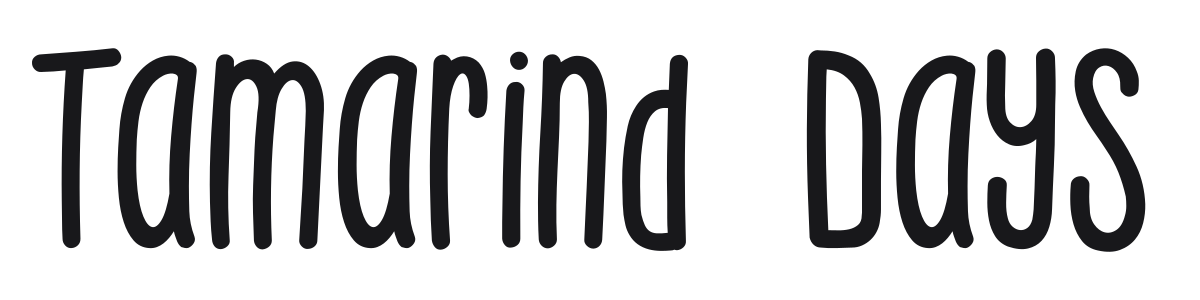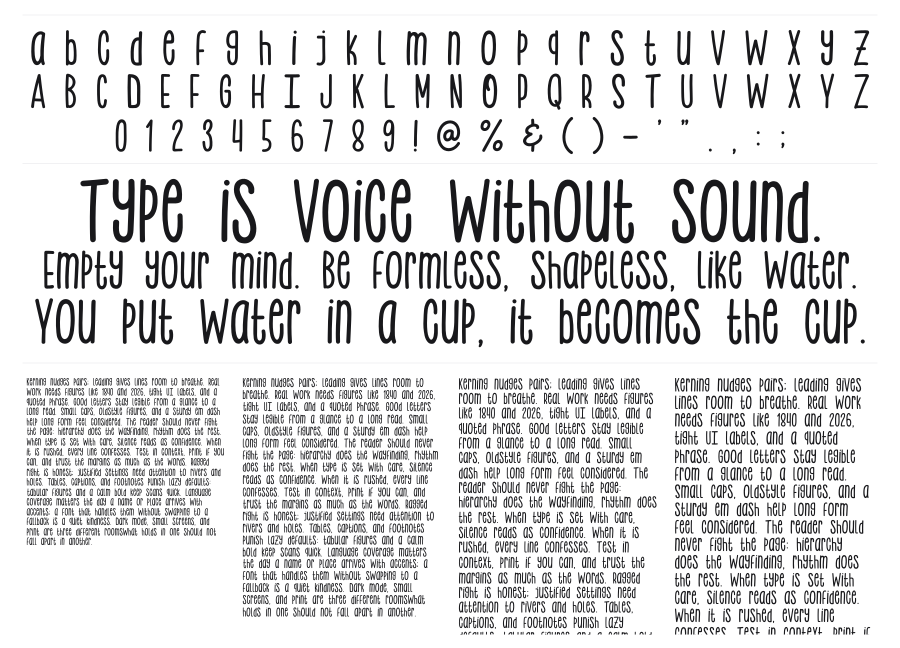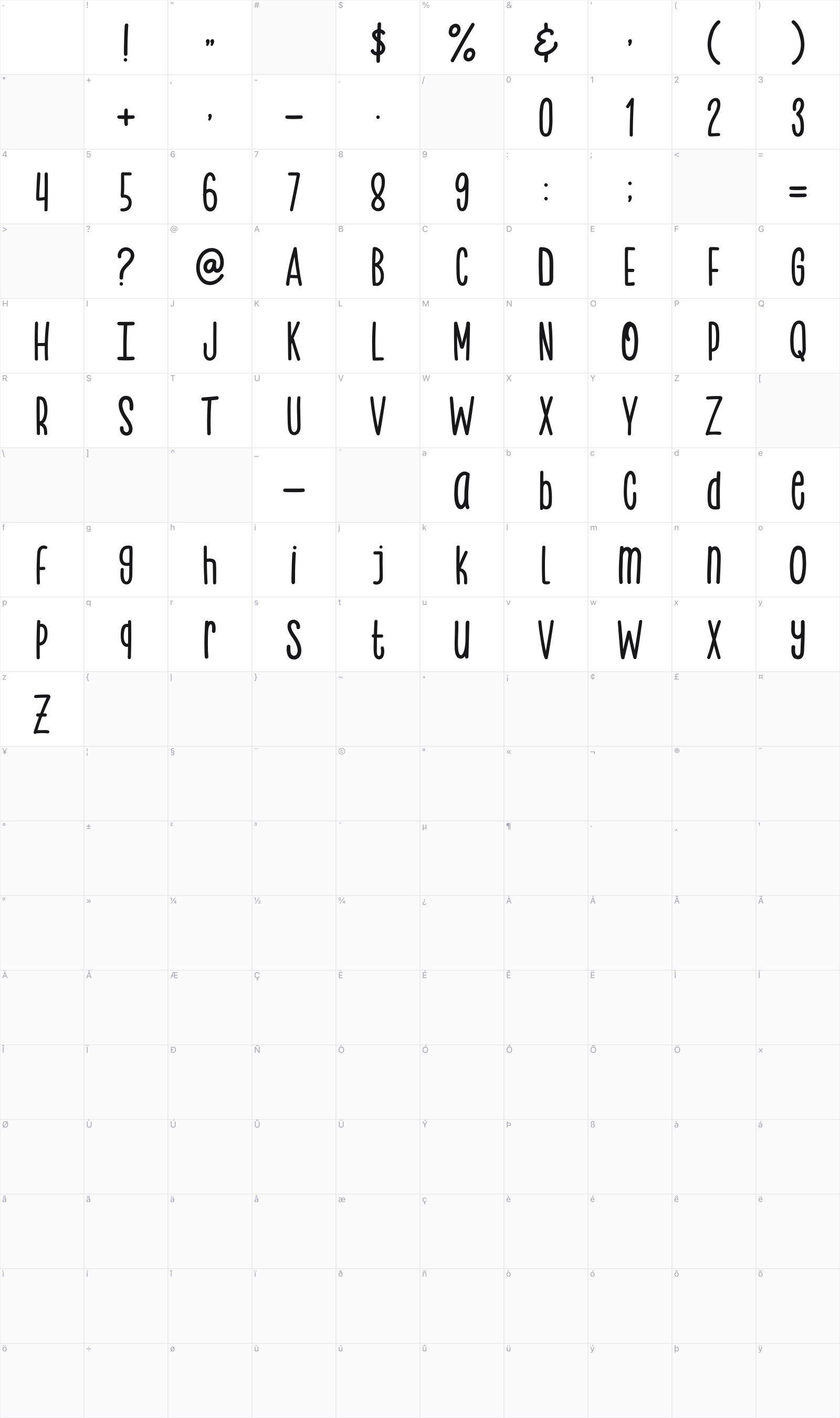
Tamarind Days
Tamarind Days is a bold rounded sans with tall, narrow characters and a distinctly handcrafted personality. Slight quirks in stroke curvature and terminal direction keep it from feeling mechanical, giving it a warm, casual energy. A natural choice for branding, packaging, or any project that needs approachable character at large sizes.